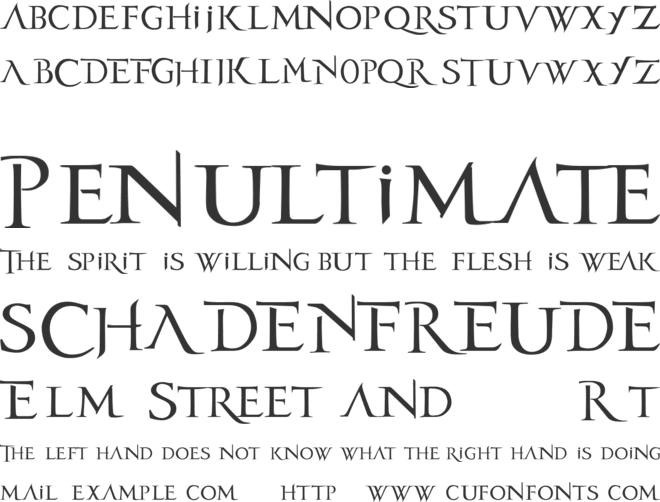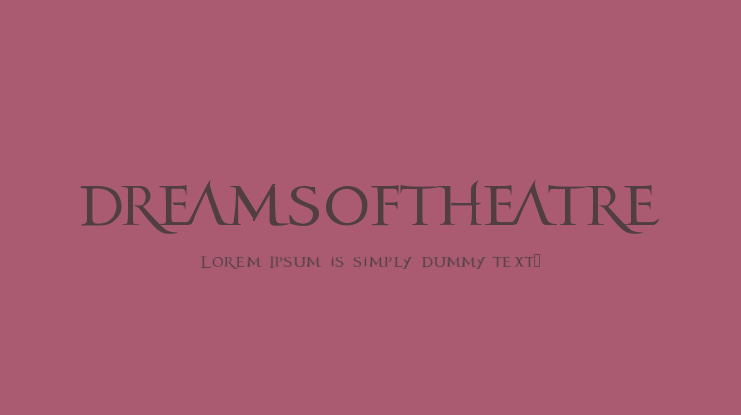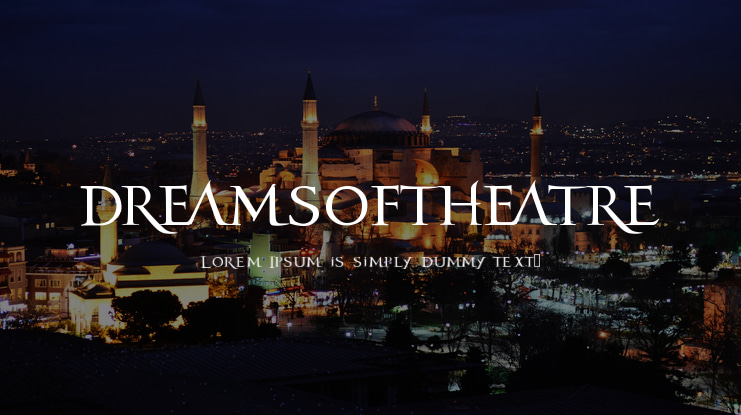
dreamsoftheatre Font
A font inspired by, and based on Dream Theater’s logo. I am a huge fan of the band, so this is an alternative kind of fan-art I guess. :) This is just the start, currently working on the other characters.